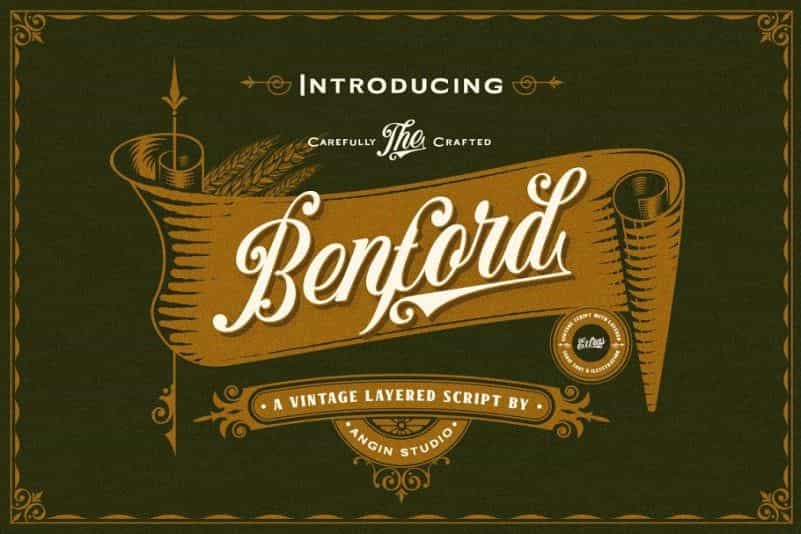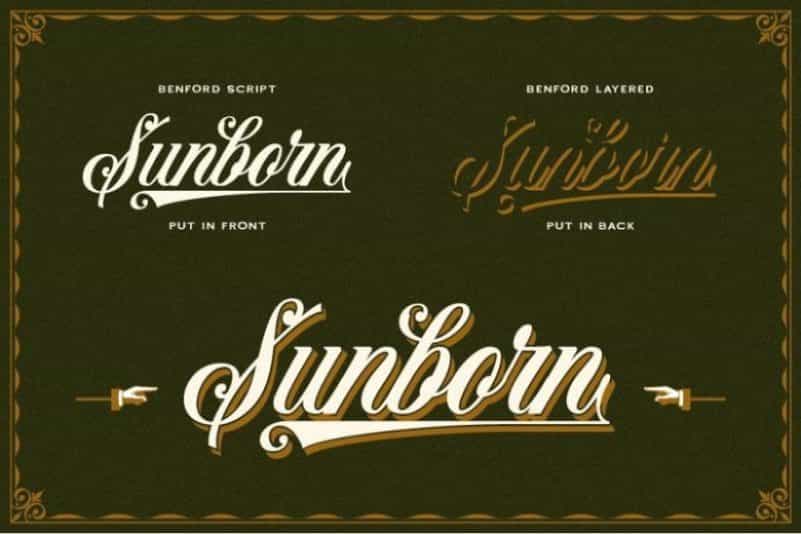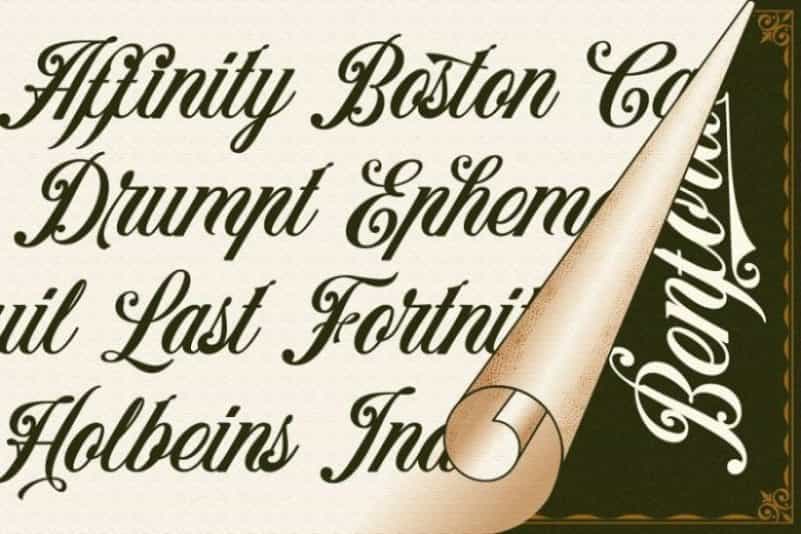
Benford is a font pack that contains vintage script with layered style and many features in it, perfectly paired sans serif, serif and also the special feature of vintage illustrations. This font pack was taken from the old fashion script, Vintage beer labels, Ephemera and Old packaging.